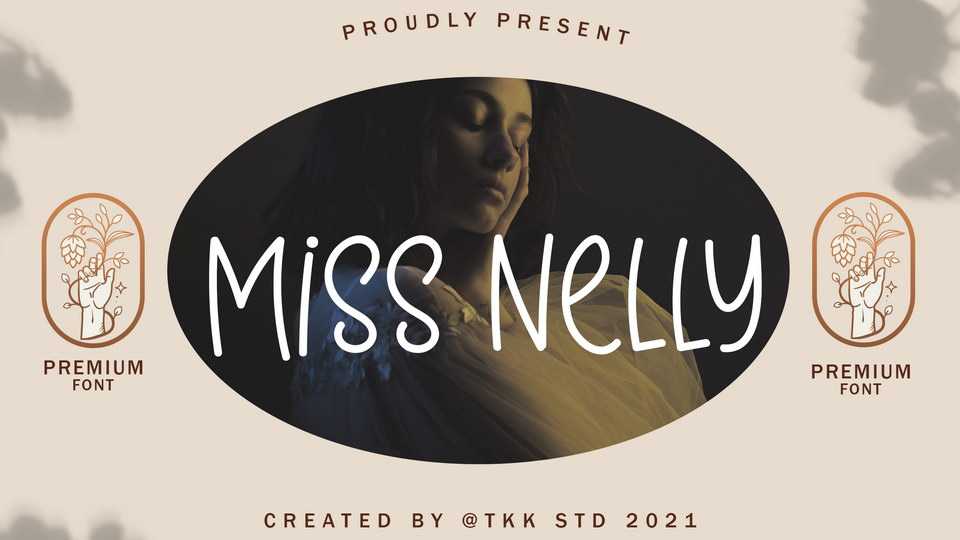
Download Miss Nelly font, a simple yet beautiful handwritten typeface. Miss Nelly will emphasize the cuteness and chic girly vibe that you want to have on your design.